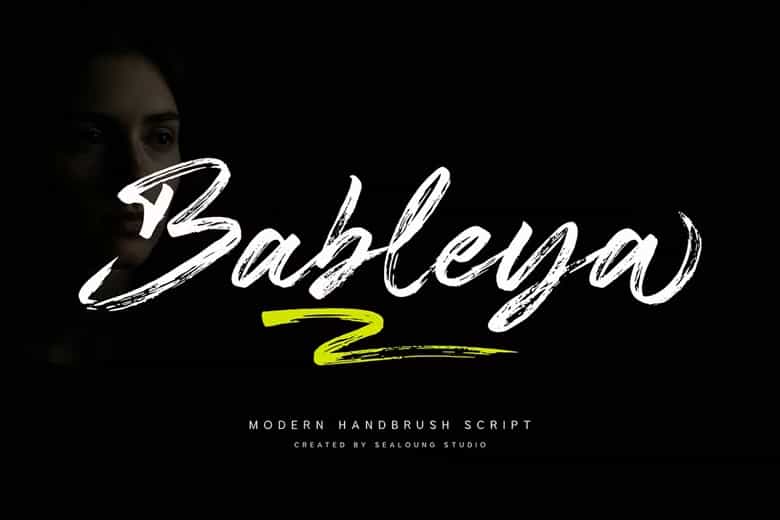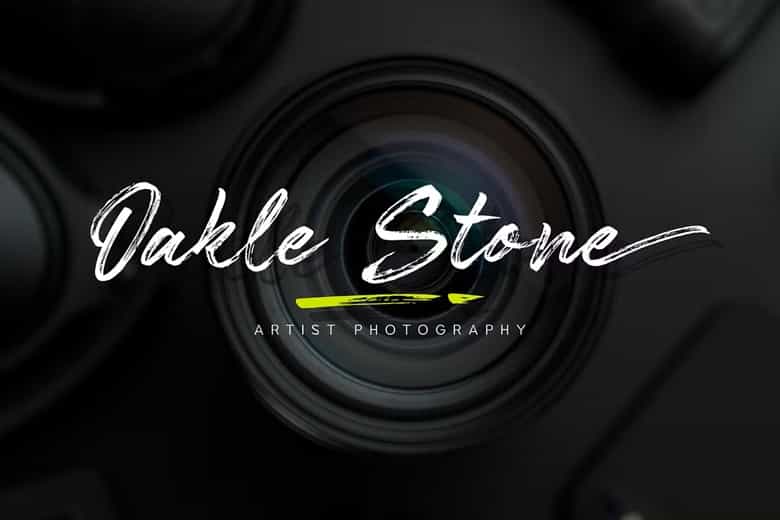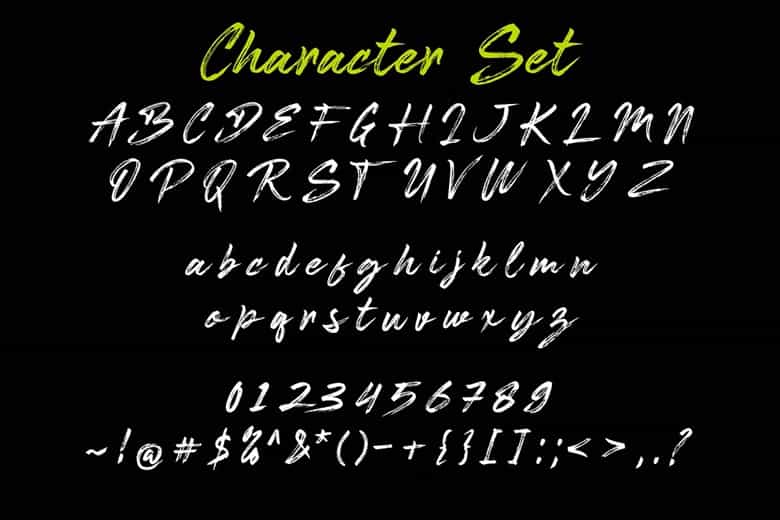
Discover Bableya Font, part of the Brush collection—a versatile and unique font perfect for adding a personal touch to your projects. Download it for free and enjoy crafting designs with style, from invitations to social media posts. This font is available exclusively for personal use, giving you the freedom to create without limits. Unlock your creativity with Bableya Font today!
This is a charming details modern brush font with elegant style. Its brush strokes are very friendly looking and engaging, making this a great library to make your designs pop. Bableya is distinguished because it is ideal for branding, logos, wedding invitations, social media content, advertisements, product packaging and design, labels, photography, stationery, and any other project that requires a handwriting touch.